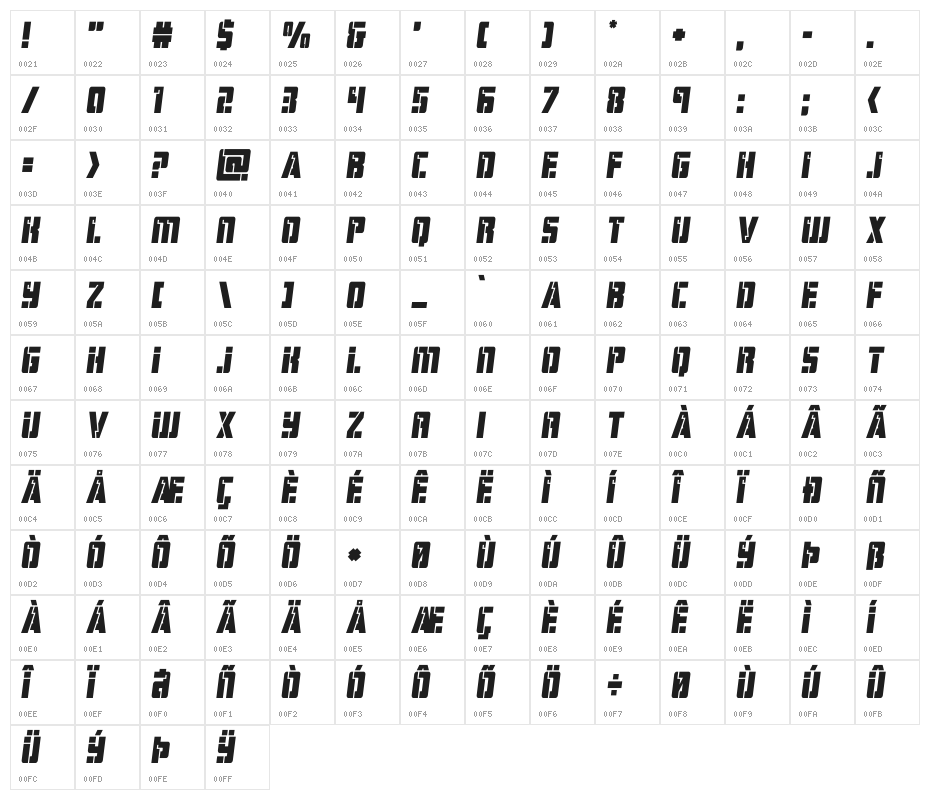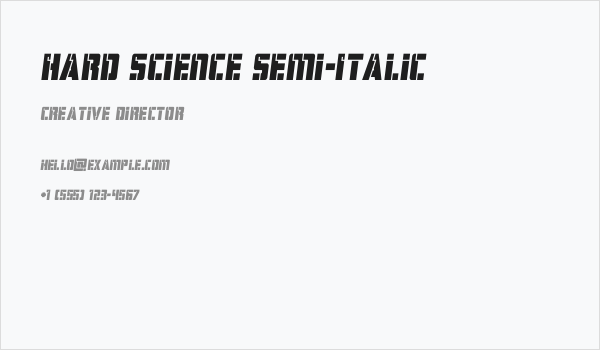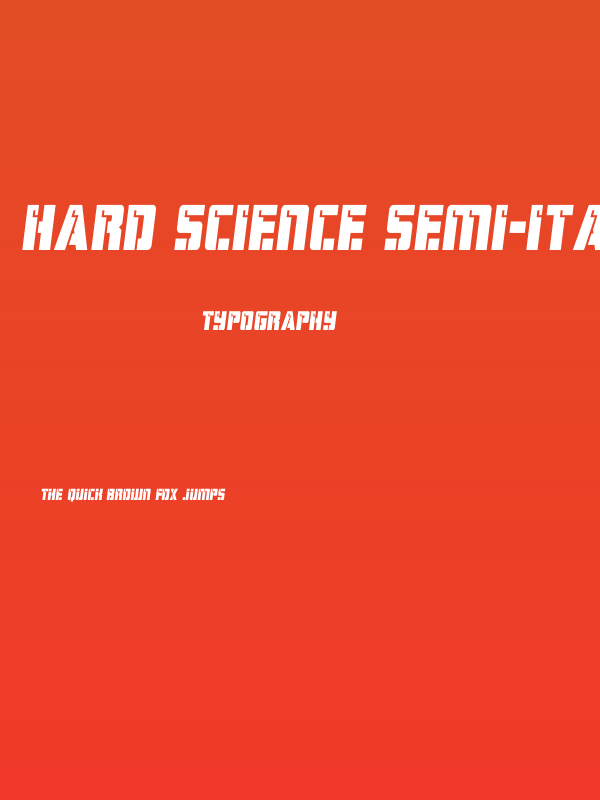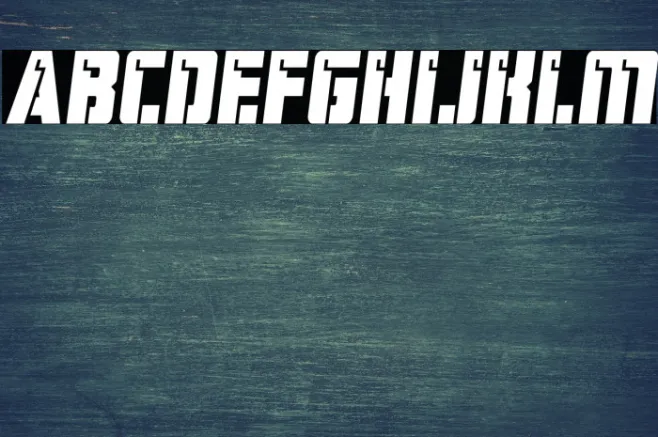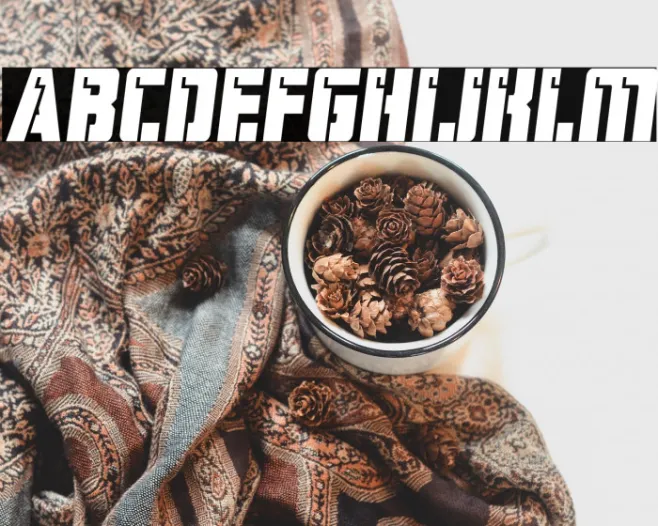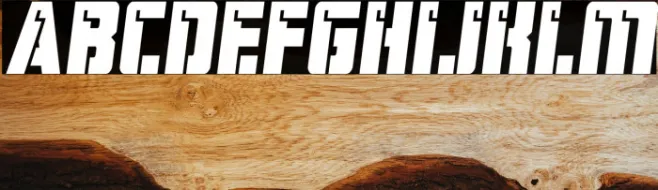
Hard Science Semi-Italic Font
Hard Science Semi-Italic Description
This font exhibits a bold and futuristic style with a semi-italic slant, giving it a dynamic and forward-moving appearance. The characters are blocky and geometric, with sharp angles and a strong presence. The uppercase and lowercase letters maintain a consistent style, emphasizing a sense of uniformity and strength. The numbers and special characters follow the same design principles, ensuring a cohesive look across all glyphs. The font's boldness and unique style make it stand out, ideal for projects that require a modern and impactful visual identity.
| Proposed Projects | Ideal for sci-fi themed designs, technology branding, video game titles, and futuristic posters. |